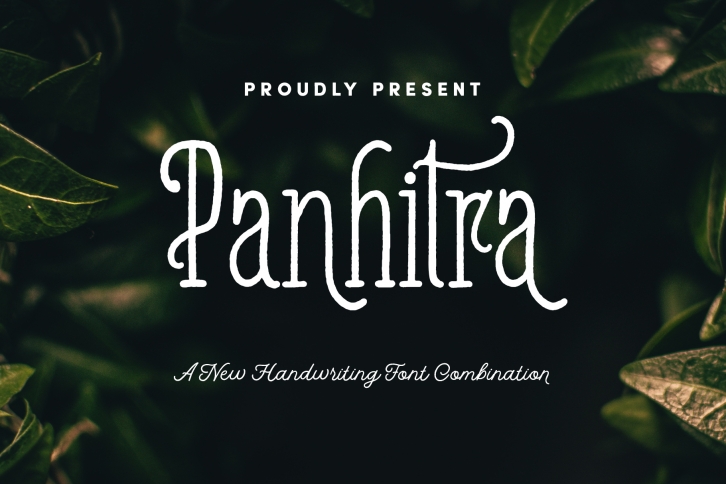
Panhitra Family is a great font that was designed by Lostvoltype. Imagine the amount of combinations you can create using this font! The archive is 12.95 MB and it was released on February 14, 2019. Panhitra Family looks beautiful on wedding invitations, greeting cards, logos, posters, labels, t-shirt designs, logos, business cards and is perfect for use in ink or watercolor works, fashion, magazines, packaging and food menus, children's books and more!